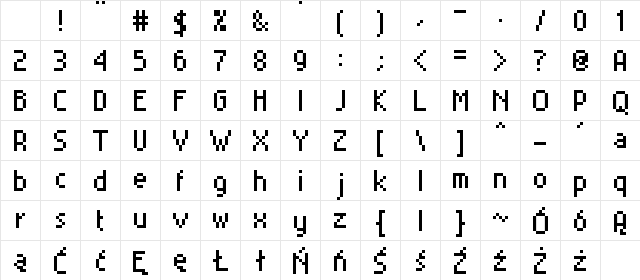
Complete MiniSet2 Regular glyph index. Displaying only characters natively supported by MiniSet2 Regular font.
MiniSet2 is a composed and adaptable typeface that performs quietly and consistently across a wide range of design contexts.